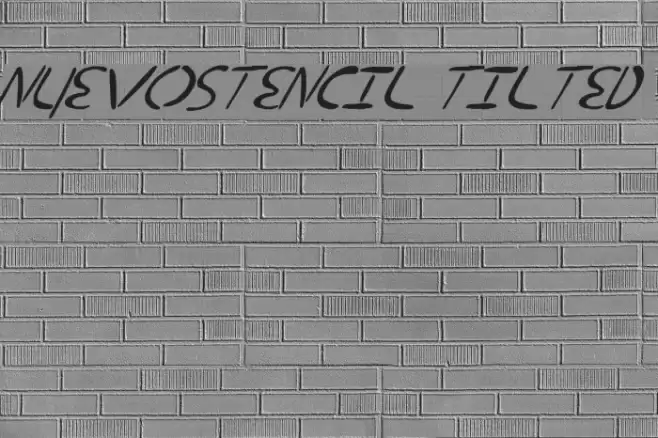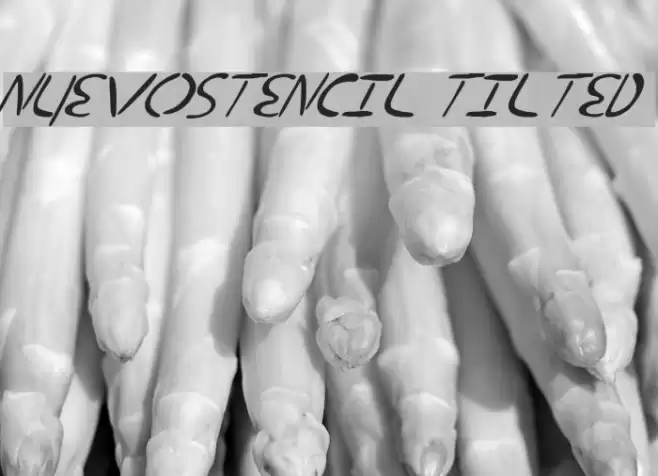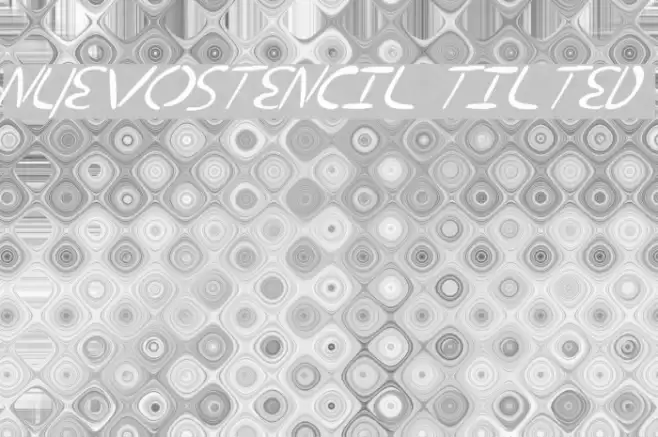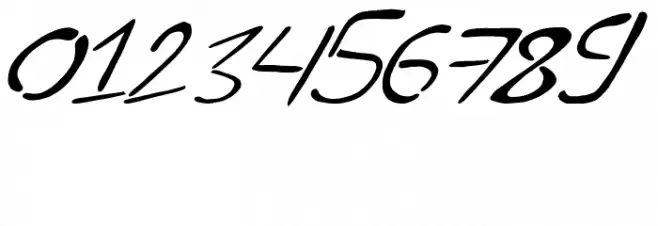
nuevostencil tilted Font
nuevostencil tilted Description
This font features a dynamic and energetic style with a stencil-like appearance, characterized by sharp, angular strokes and a slight forward tilt. The uppercase letters are bold and assertive, while the lowercase letters maintain a consistent flow, creating a harmonious balance. The numerals are distinct and easy to read, with a modern twist that complements the overall design. The special characters are seamlessly integrated, adding versatility to the font. This typeface is ideal for projects that require a contemporary and edgy look, making it suitable for branding, advertising, and creative design work.
A dynamic, stencil-inspired font with angular strokes and a modern tilt from Uncategorized fonts.